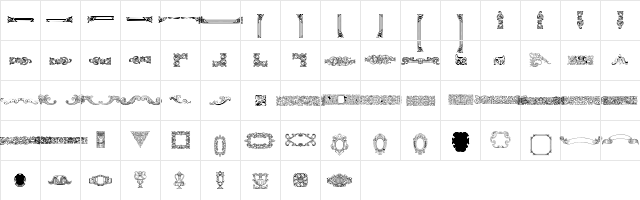
Mortised Ornaments Free Regular
Design Context for Mortised Ornaments Free Typeface
Mortised Ornaments Free is built around its visual character rather than neutral utility — its distinctive forms are designed to make an impression at display sizes.
Font Pairing: Pair with a clean neutral sans-serif for body copy to let Mortised Ornaments Free's character lead without overwhelming the composition.
Pro Tip: Use Mortised Ornaments Free exclusively at display sizes — it was designed to be seen, not read at length. Let a neutral companion handle body copy.